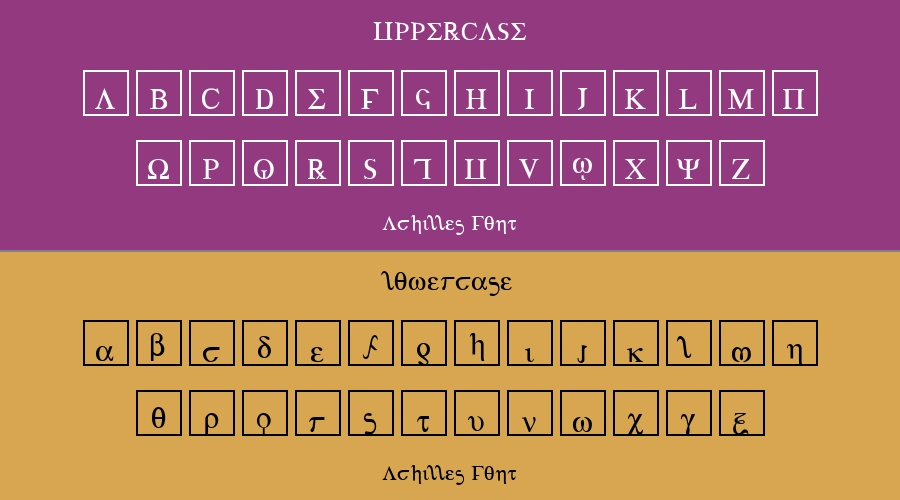
About Achilles Font
Achilles Font represents a sophisticated approach to type design, balancing pen-inspired details with consistency. Perfect for packaging hero, this font family showcases impressive sophistication and design heritage throughout its character set. Designers appreciate its versatility and reliability.
Designers will appreciate nuanced touches including expressive energy and ordinals, adding sophistication to any project. These features become apparent in compliance seals, where file efficiency matters most. The careful treatment of stroke modulation and creative expression ensures optimal performance.